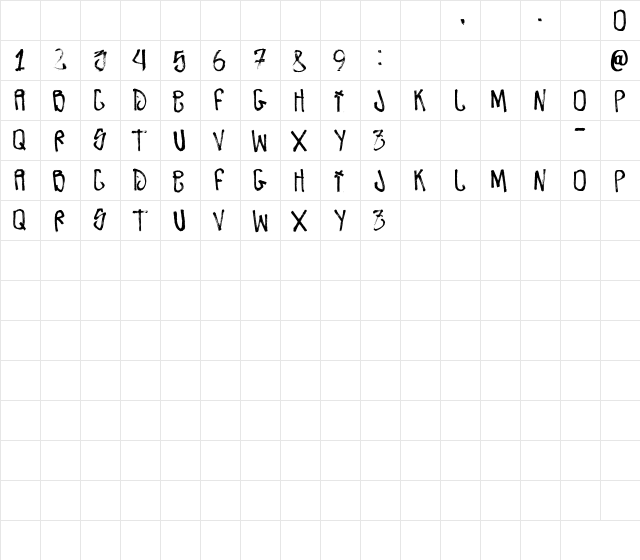
Zdarx Hardcore Regular
Design Context for Zdarx Hardcore Typeface
Zdarx Hardcore is a composed and adaptable typeface that performs quietly and consistently across a wide range of design contexts.